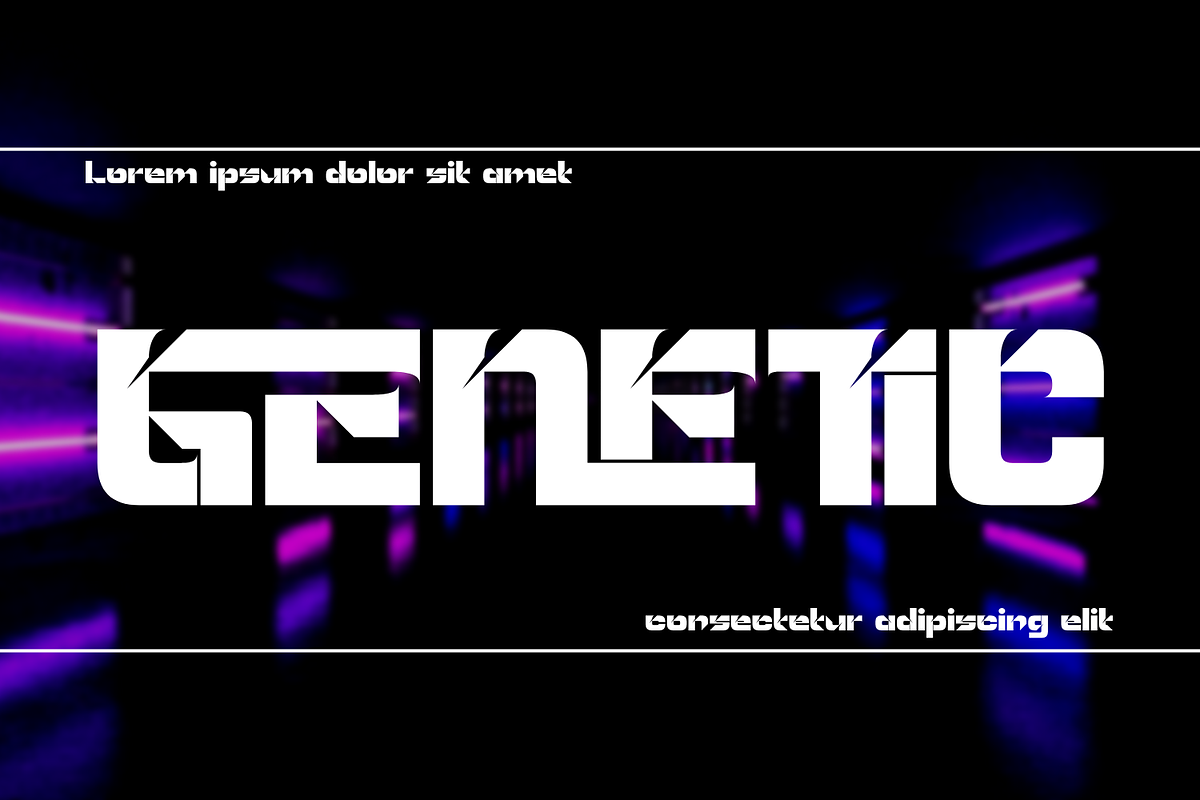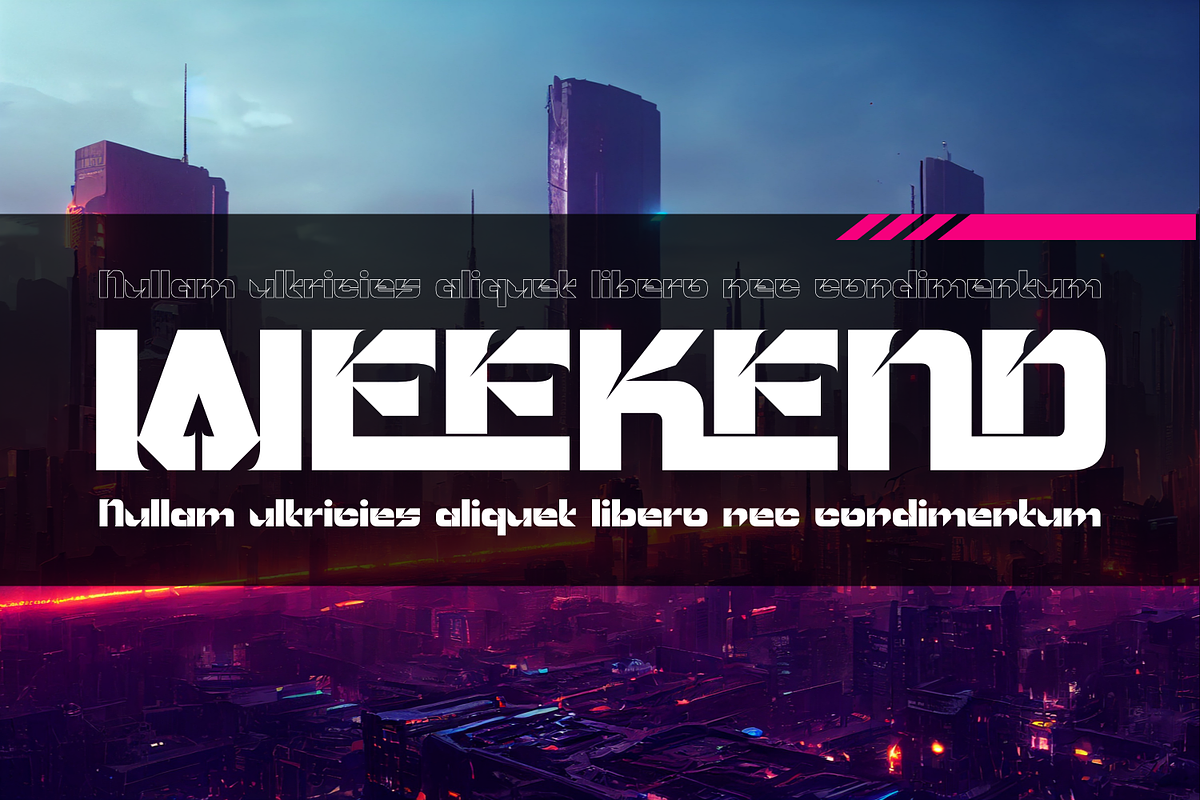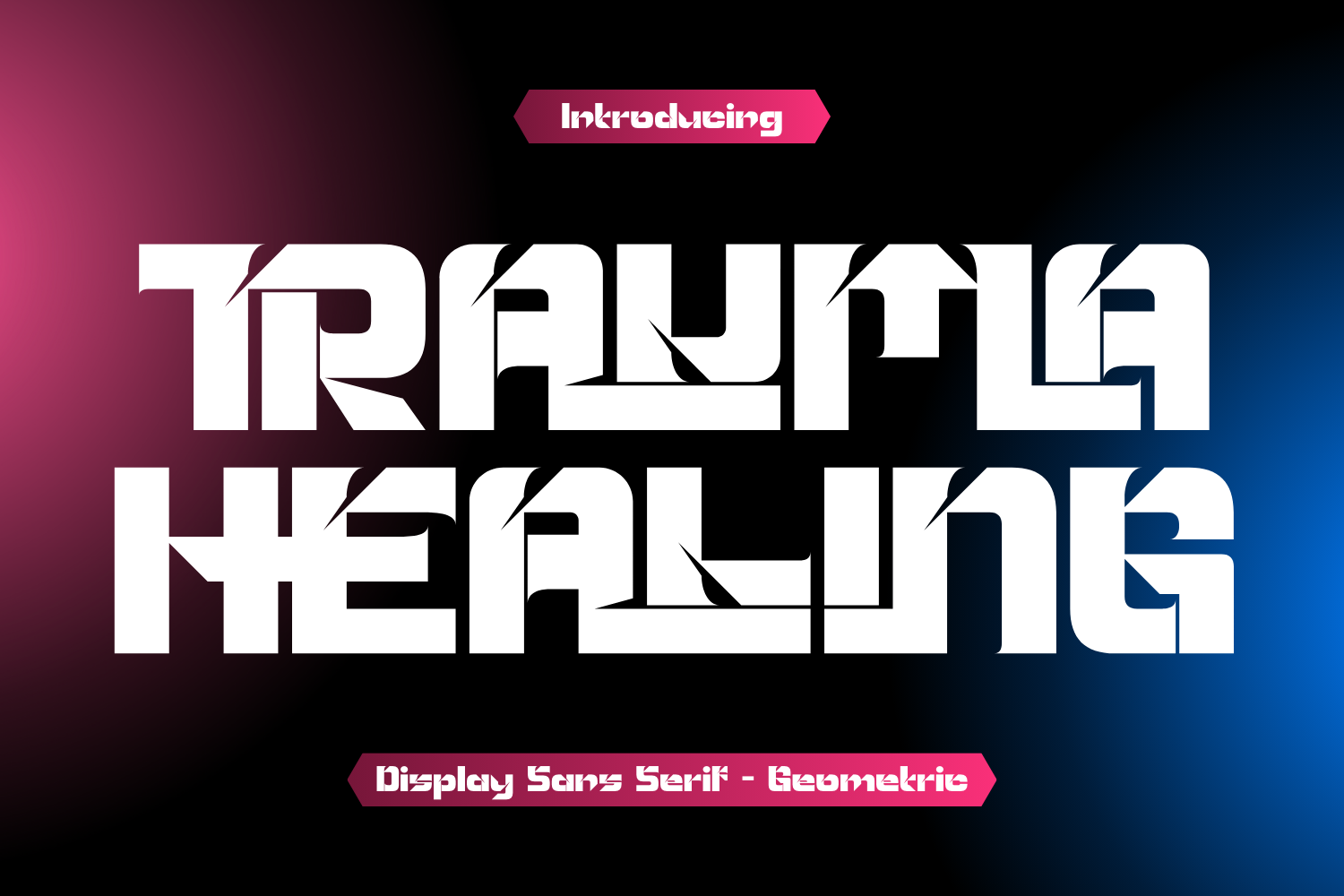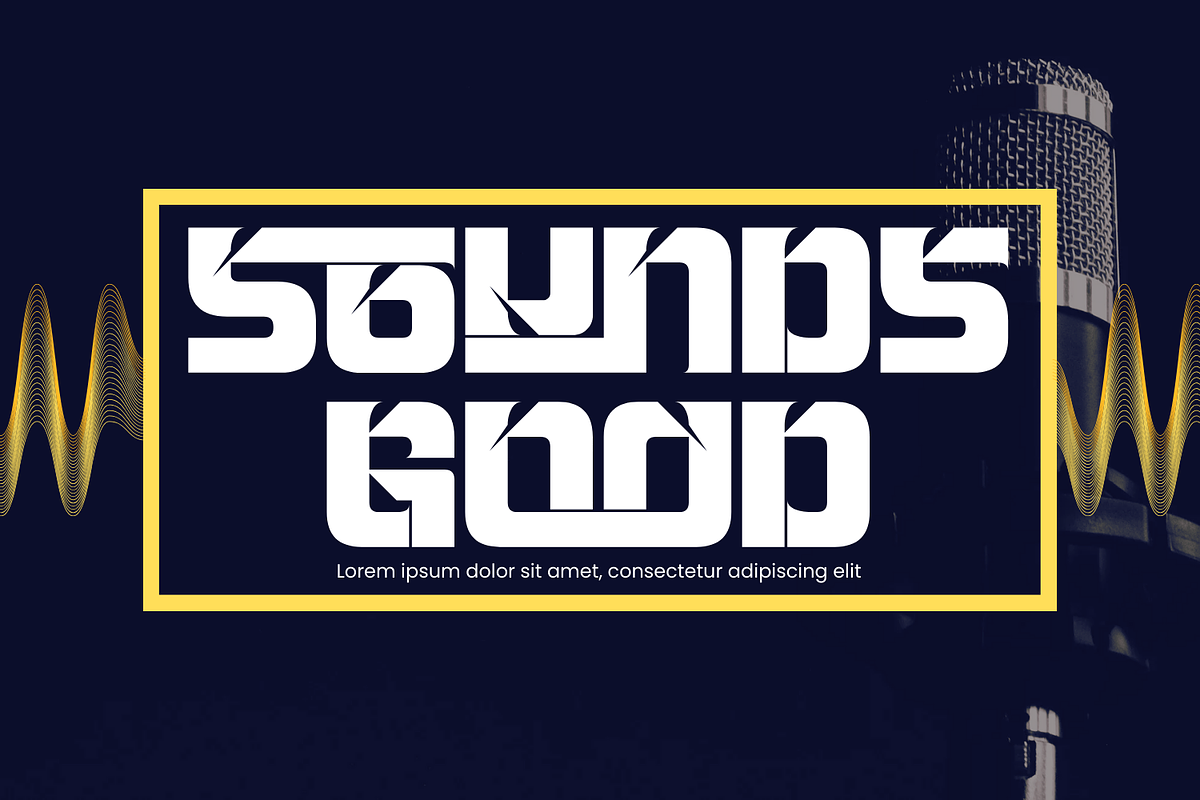
TRAUMA HEALING - FUTURISTIC FONT
TRAUMA HEALING - FUTURISTIC FONT is a bold futuristic display sans serif typeface inspired by industrial design, sci-fi aesthetics, and high-impact technology branding. Built with strong geometric shapes, sharp cuts, and powerful block forms, this font delivers a confident and aggressive visual presence. Featuring both Uppercase and Lowercase letters, approximately 100 custom special ligatures, complete Numerals & Punctuation, and extensive Accented characters, TRAUMA HEALING allows designers to create striking headlines, logos, and typographic compositions. Its angular details, solid structure, and technical ligature system make it perfect for gaming, eSports, sci-fi posters, technology branding, AI projects, and futuristic visual identities.
🔤Features:
- Uppercase & Lowercase Letters
- Around 100 Special Ligatures & Alternates
- Accented Characters for multilingual support
🔤About 100 ligatures combined with Stylistic Alternates Font:
AC AD AL AN AR AS AT AU AV BE CA CE CH CO CT DE DI EA EC ED EE EL EM EN EP ER ES ET FE FO FR GE HA HE HI HO IE IC IL IN IO IR IS IT JU KE LA LE LI LL LO LY MA ME MI NC ND NE NG NO NT NS OC OF OM ON OO OP OR OT OU OW PA PR RA RD RE RI RO RS RT SE SH SI SO SS ST TA TE TH TI TO TR TT UM UN UR VE WI WO